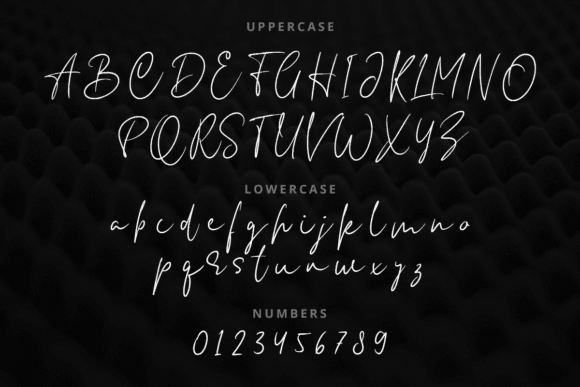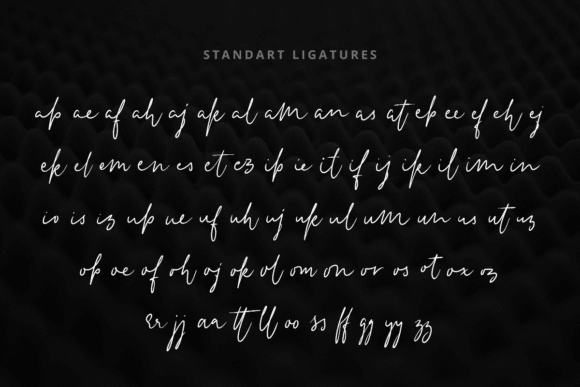
Anderson Signature Font
Anderson Signature is a modern and playful script font. It’s great for crafters and designers. This font is PUA encoded which means you can access all of the glyphs and swashes with ease! Created by Kong Font Studio